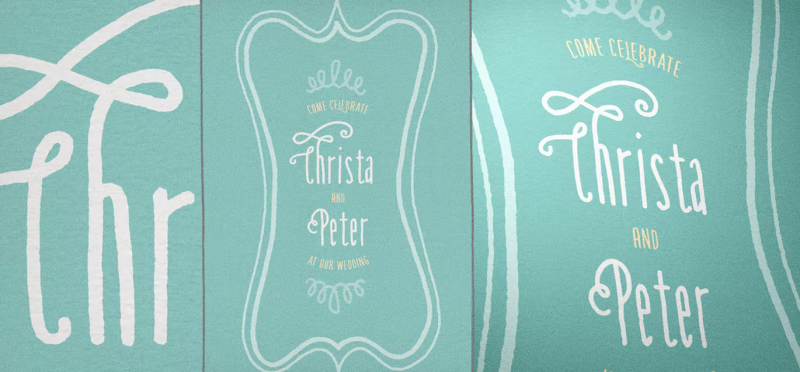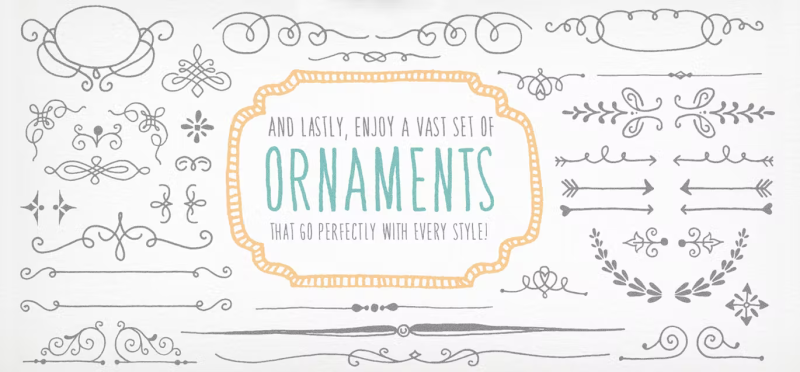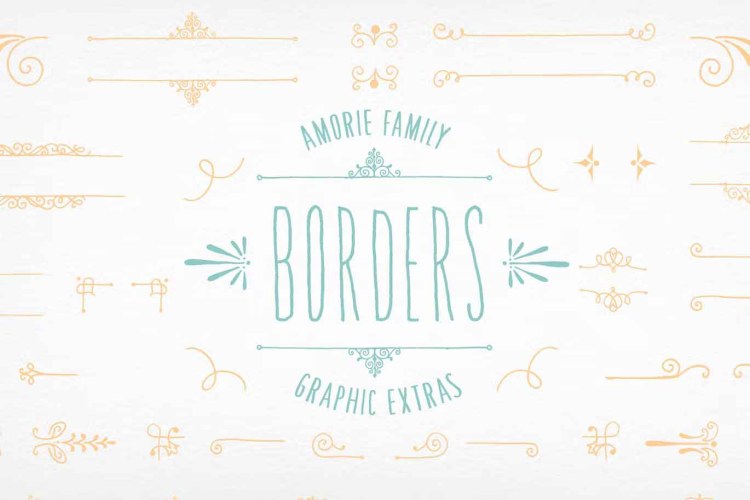
Amorie Font Elements
This is the set of graphic extras built to go with Amorie Modella, Nova, SC as well as the other ornament sets for Amorie. Included in this package are files for:
Where Amorie Font Elements works best
Headlines and titles
Amorie Font Elements has enough character to carry a headline on its own; set it large and keep the supporting text plain.
Brand and product names
Short strings are where this typeface is strongest — a name, a label, a cover line.
Social and video graphics
Set Amorie Font Elements over a flat colour or a quiet photograph so the letterforms stay the focus.
What kind of work does Amorie Font Elements suit?
It sits in the Handwriting Fonts group and reads as extras, graphic, handwriting fonts, professional. That makes it a candidate wherever those qualities help: headings, packaging, social graphics and brand work. Set it at the size you plan to use before deciding.